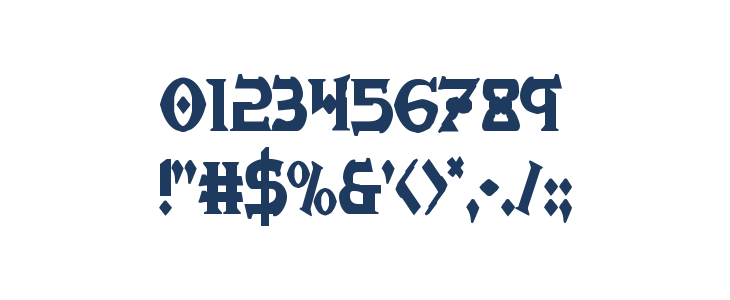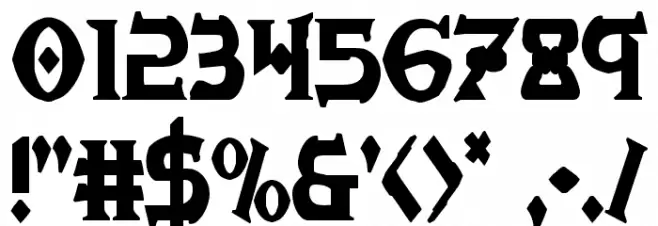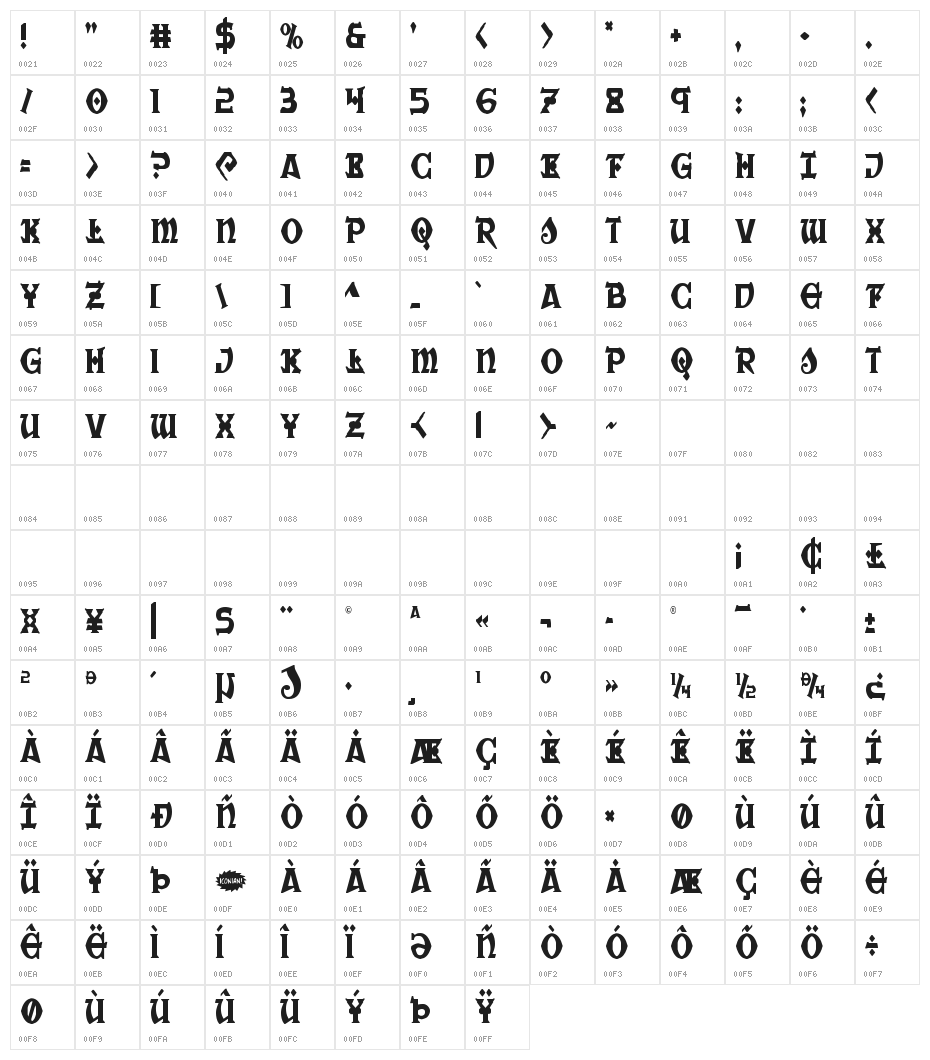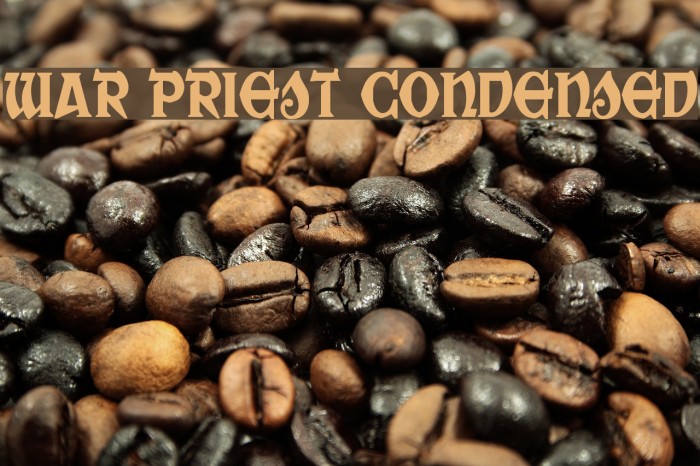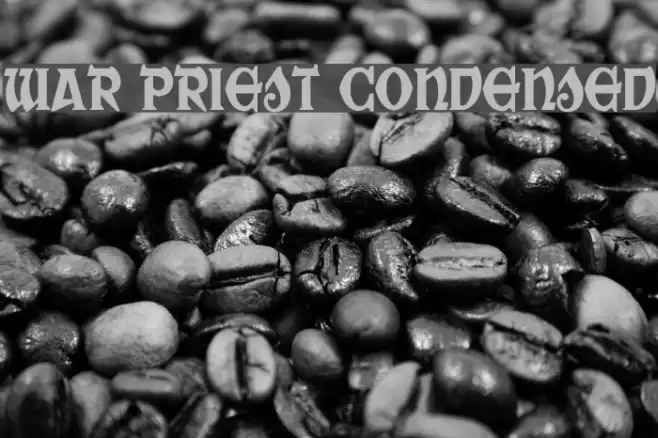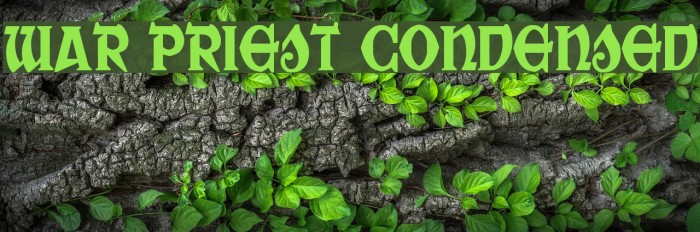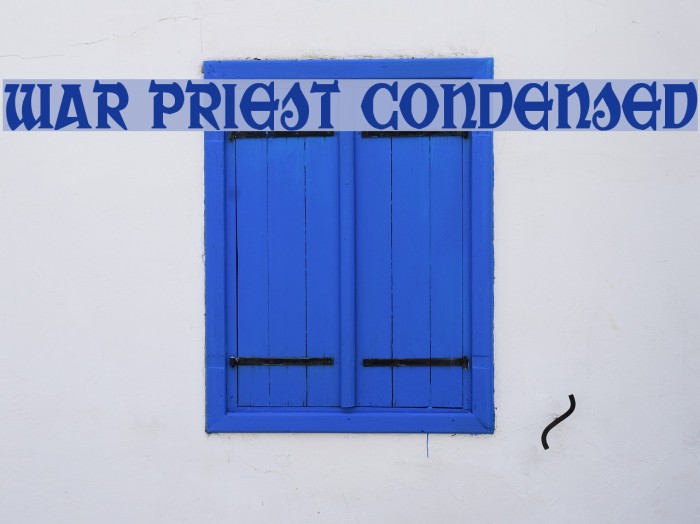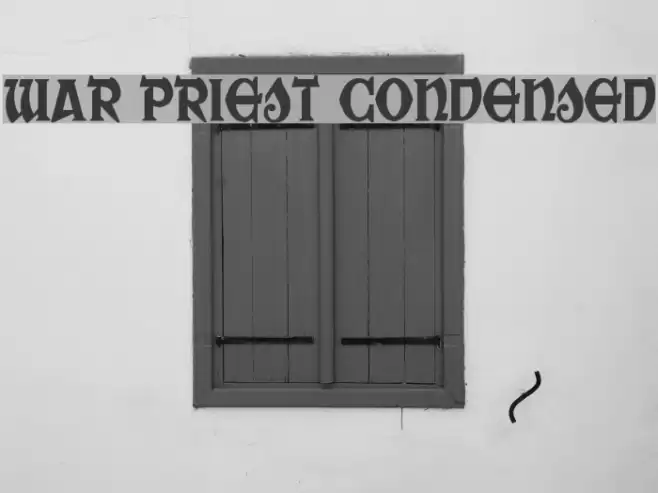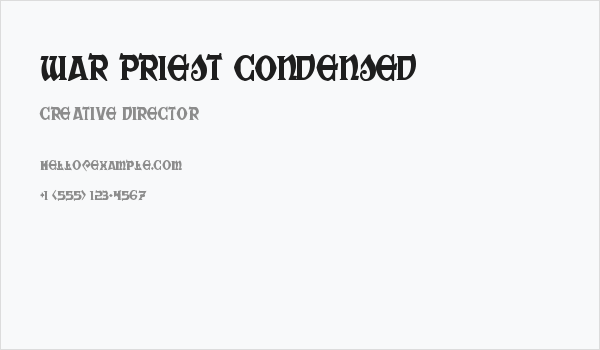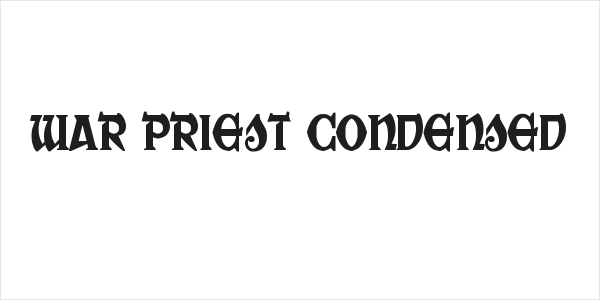
War Priest Condensed Font
War Priest Condensed Description
This font features a bold and striking design with a medieval and gothic influence. The characters are heavily stylized with sharp angles and dramatic serifs, giving it a strong and commanding presence. The uppercase letters are particularly ornate, with intricate details that add to the overall decorative appeal. The numbers and special characters maintain this bold style, ensuring consistency throughout. This font is ideal for projects that require a dramatic and impactful look, such as posters, logos, or themed event materials.
| Overall Style | Gothic, Medieval, Decorative |
| Proposed Projects | Ideal for posters, logos, themed events, and any project requiring a dramatic, medieval aesthetic. |